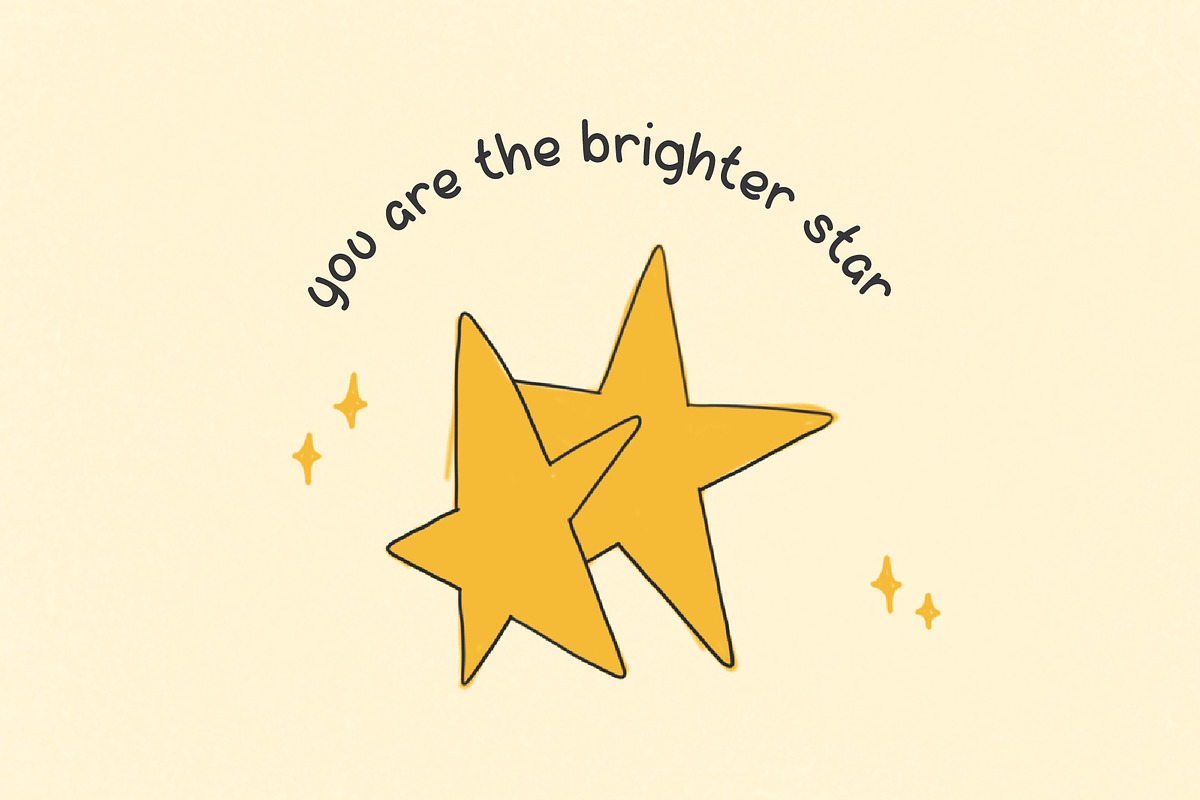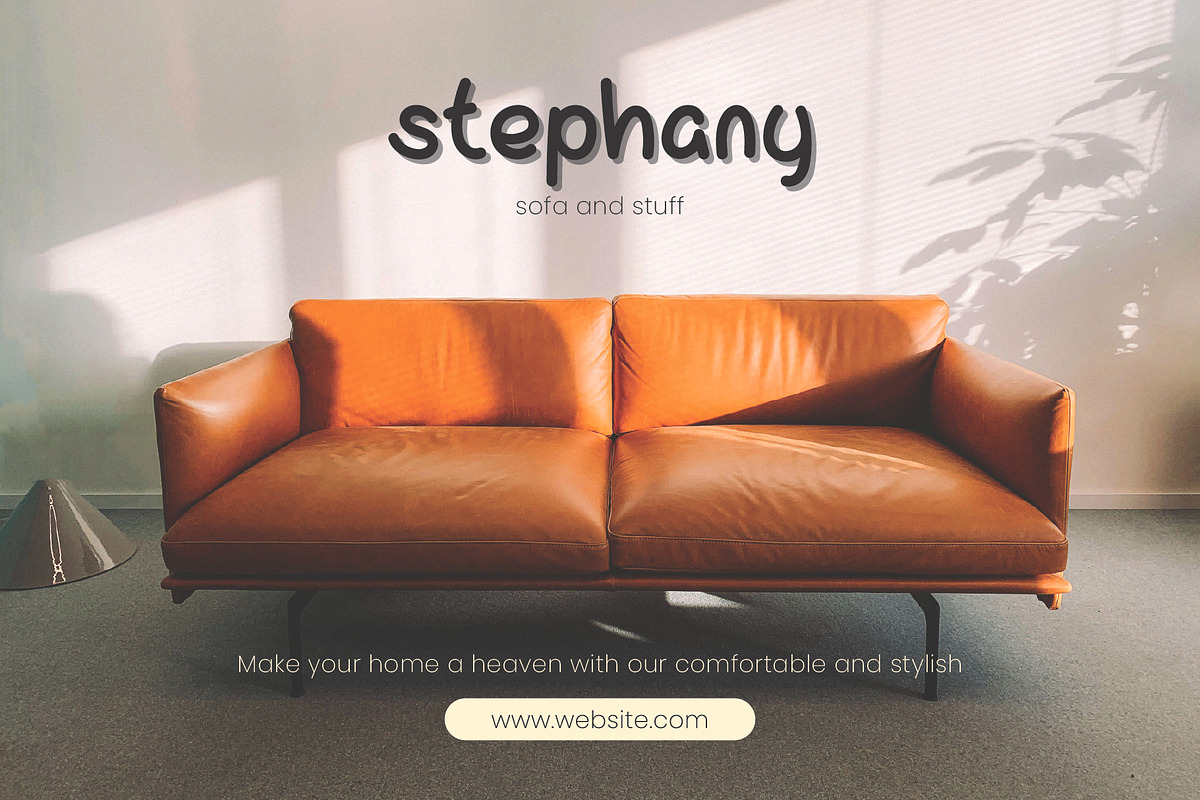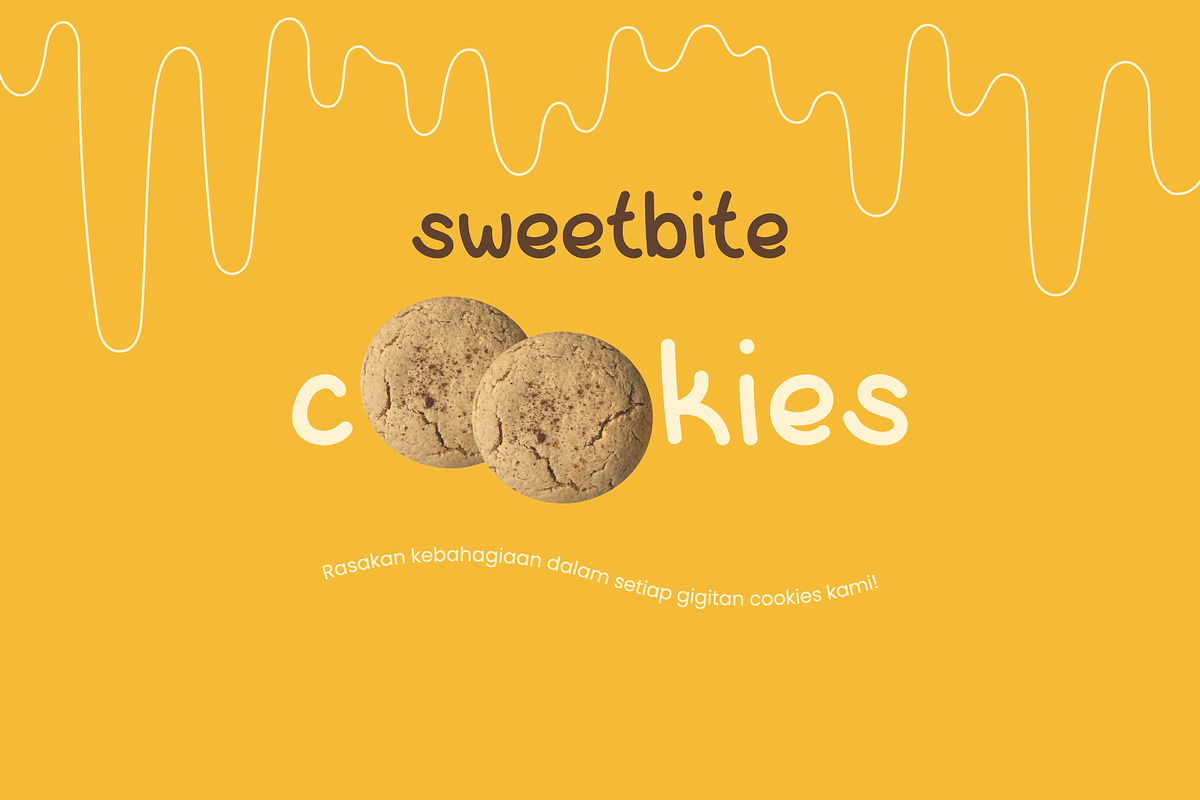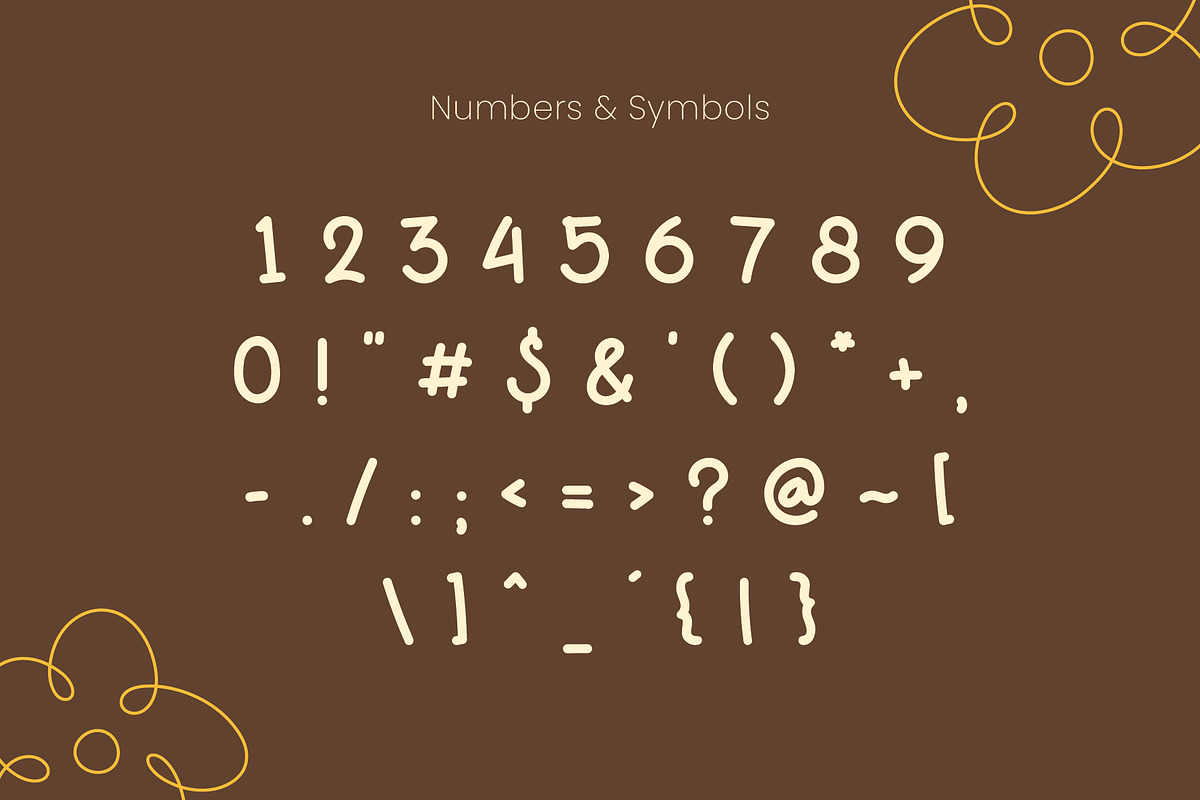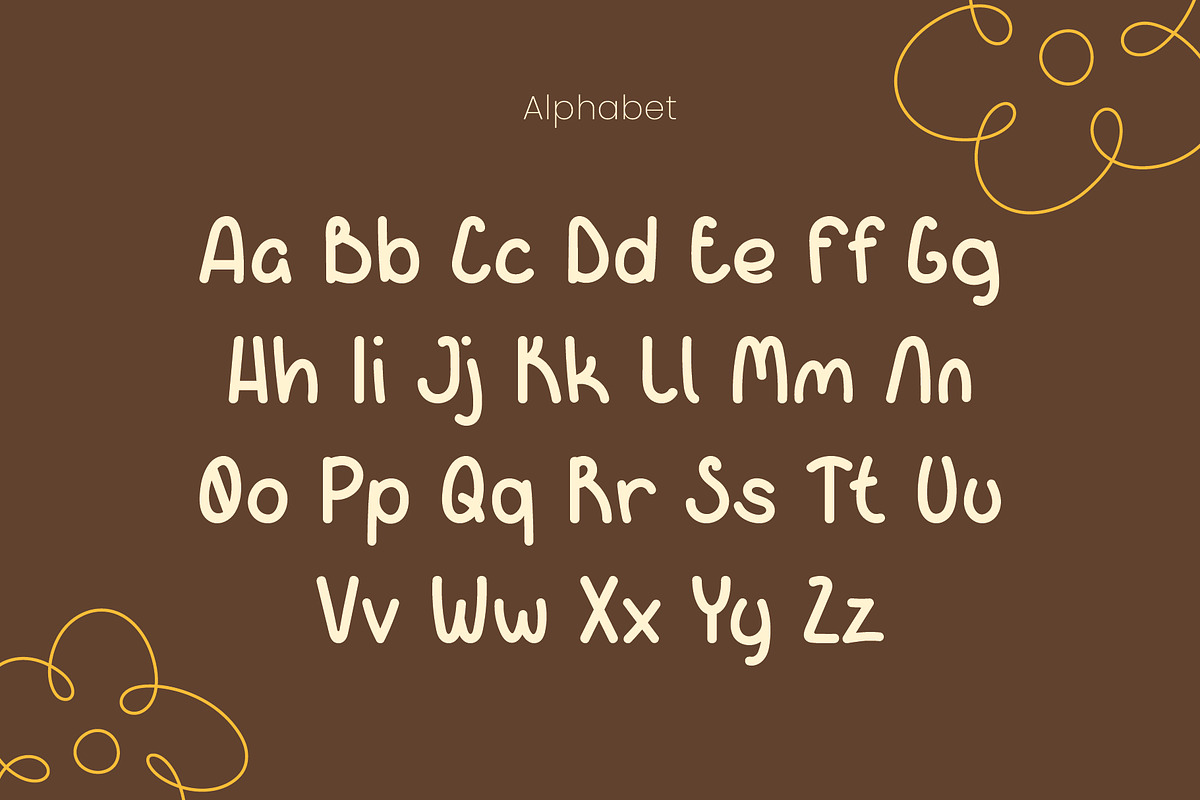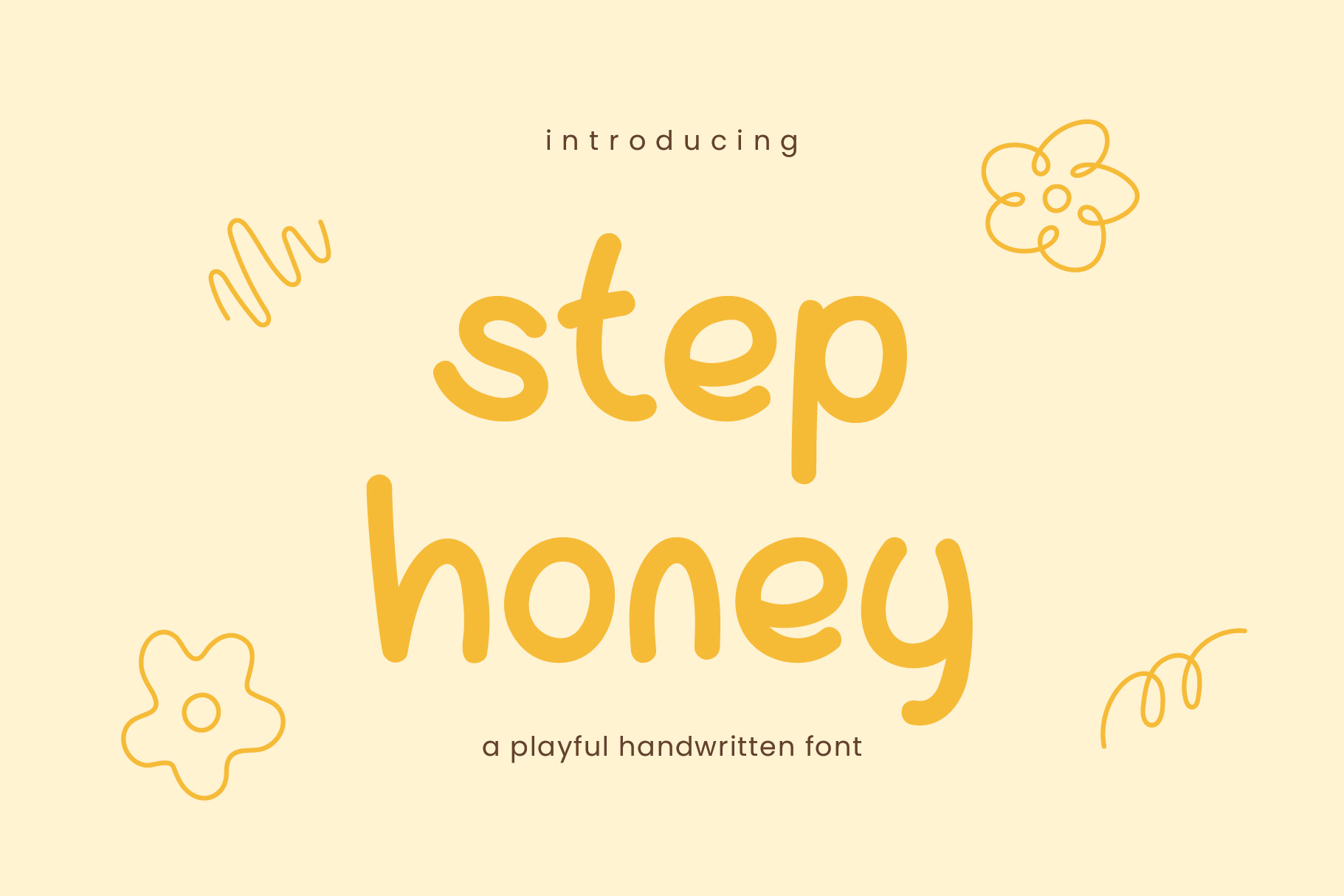
Stephoney - Handwritten Font
Introducing Stephoney, a delightful handmade font that’s bursting with joy and playfulness! With its bubbly, rounded shape, Stephoney is perfect for adding a touch of whimsy and fun to your designs.
Stephoney is ideal for creating adorable designs for kids’ products, such as children’s books, toy packaging, baby clothing, posters, and quotes.